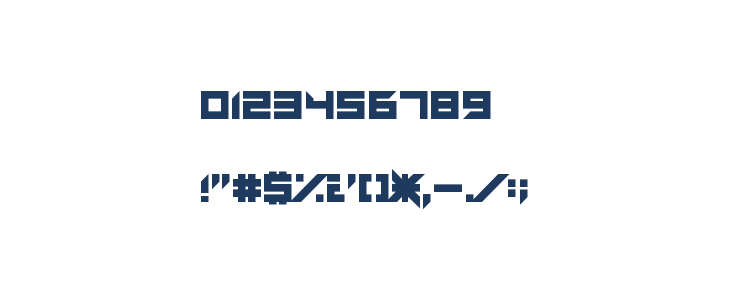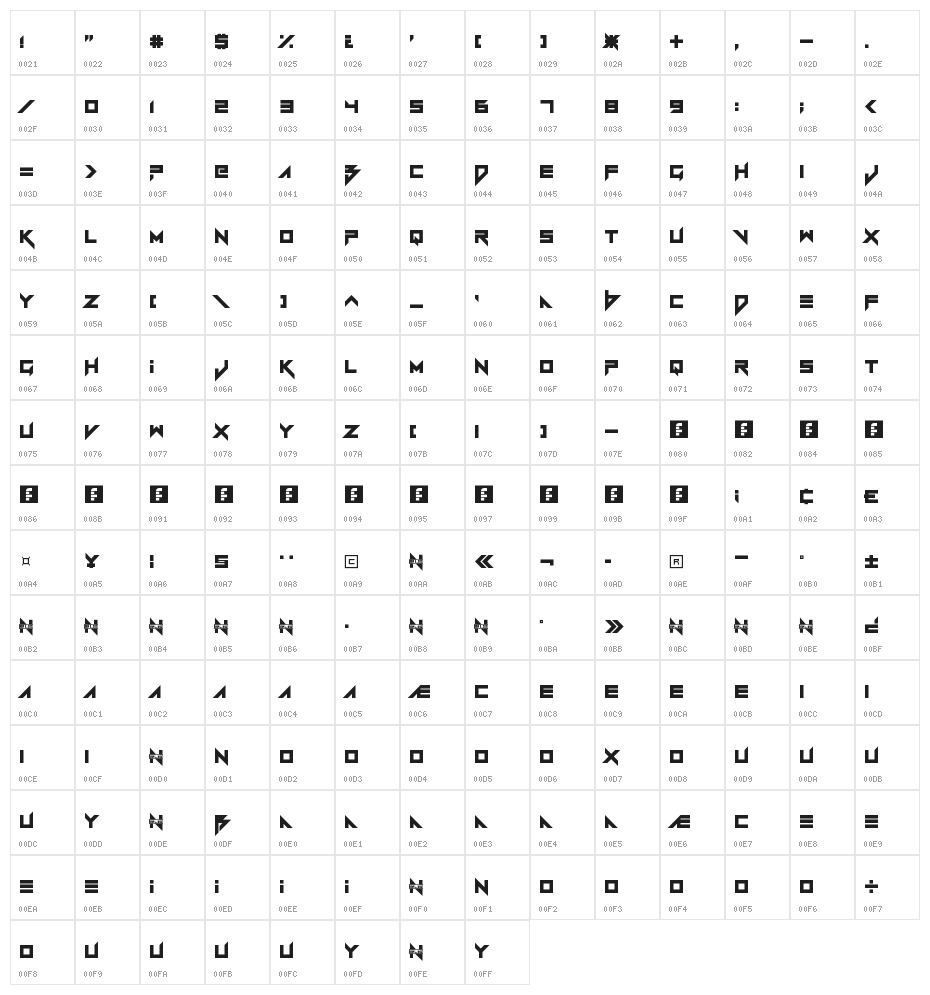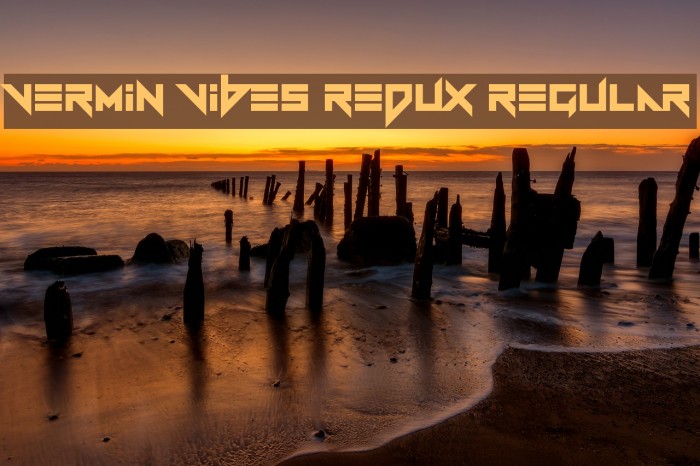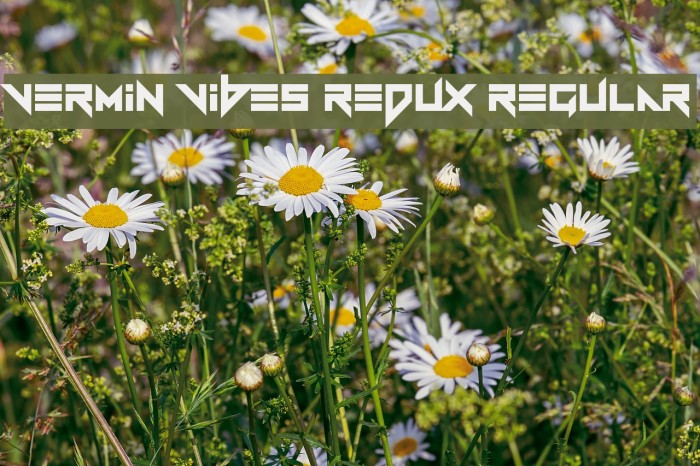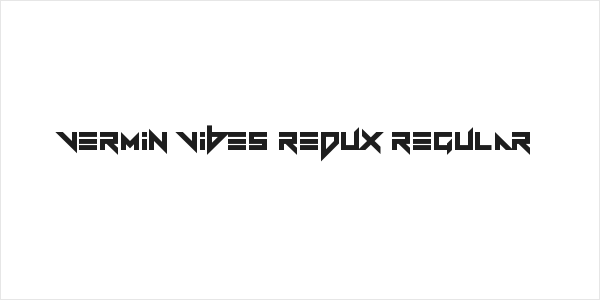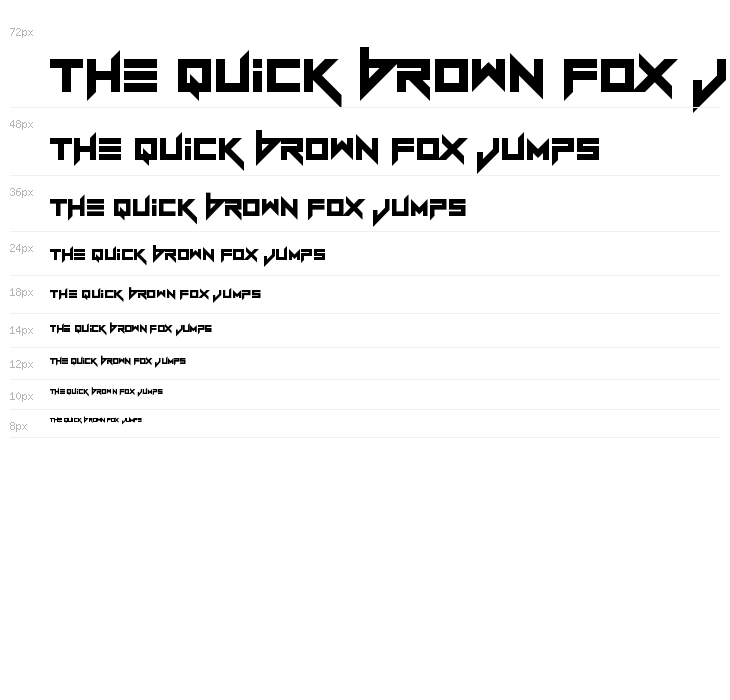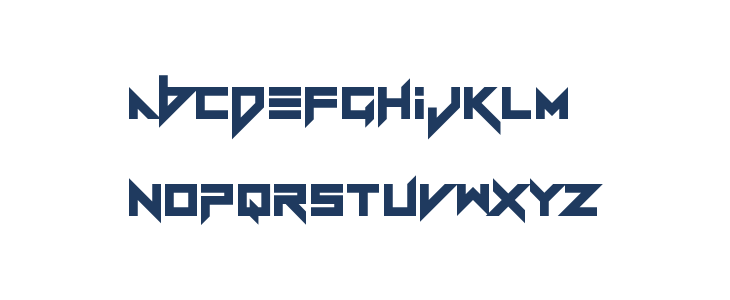
Vermin Vibes Redux Regular Font
Vermin Vibes Redux Regular Description
This font features a bold, angular design with sharp, geometric edges, giving it a futuristic and edgy appearance. The characters are constructed with a combination of straight lines and pointed angles, creating a dynamic and aggressive look. The uppercase and lowercase letters maintain a consistent style, with the lowercase mirroring the uppercase in form. Numbers and special characters follow the same angular theme, ensuring uniformity across the font. The overall design suggests a sense of movement and energy, making it suitable for projects that require a modern and impactful visual statement.
| Overall Style | Futuristic, Edgy |
| Proposed Projects | Ideal for video game titles, sci-fi movie posters, tech branding, and edgy graphic designs. |